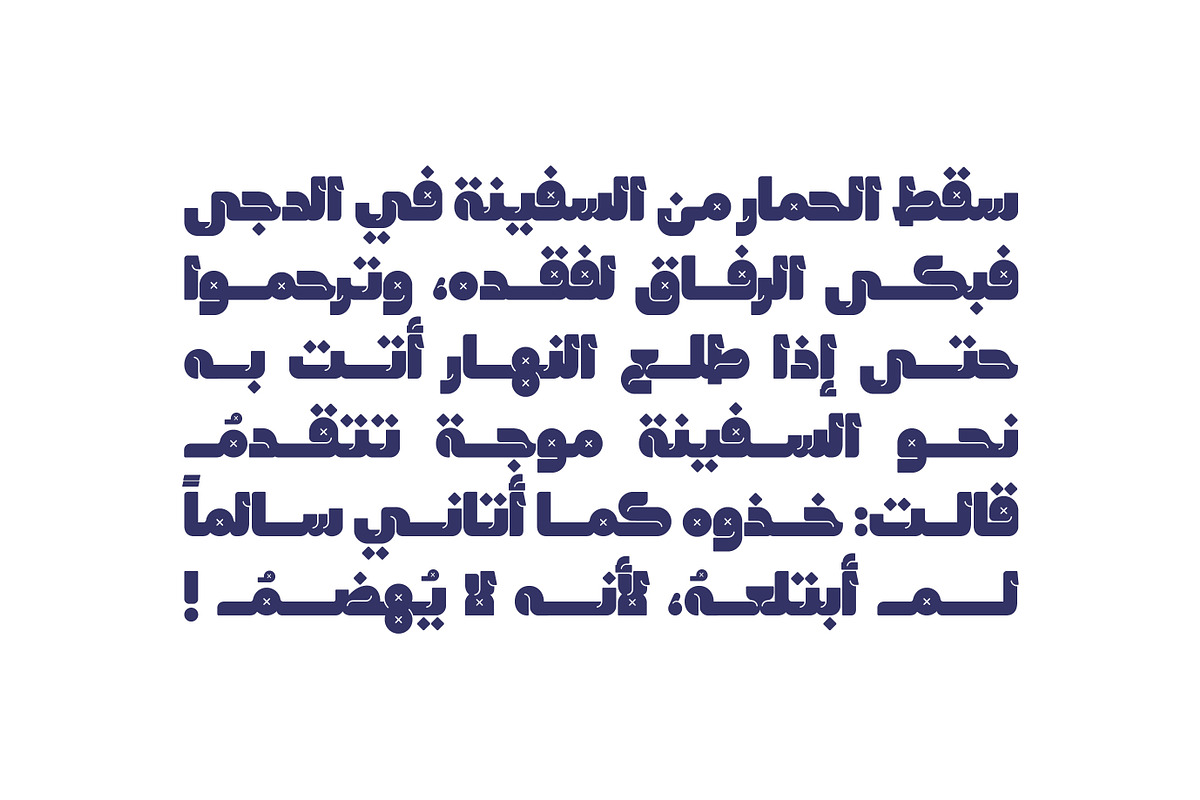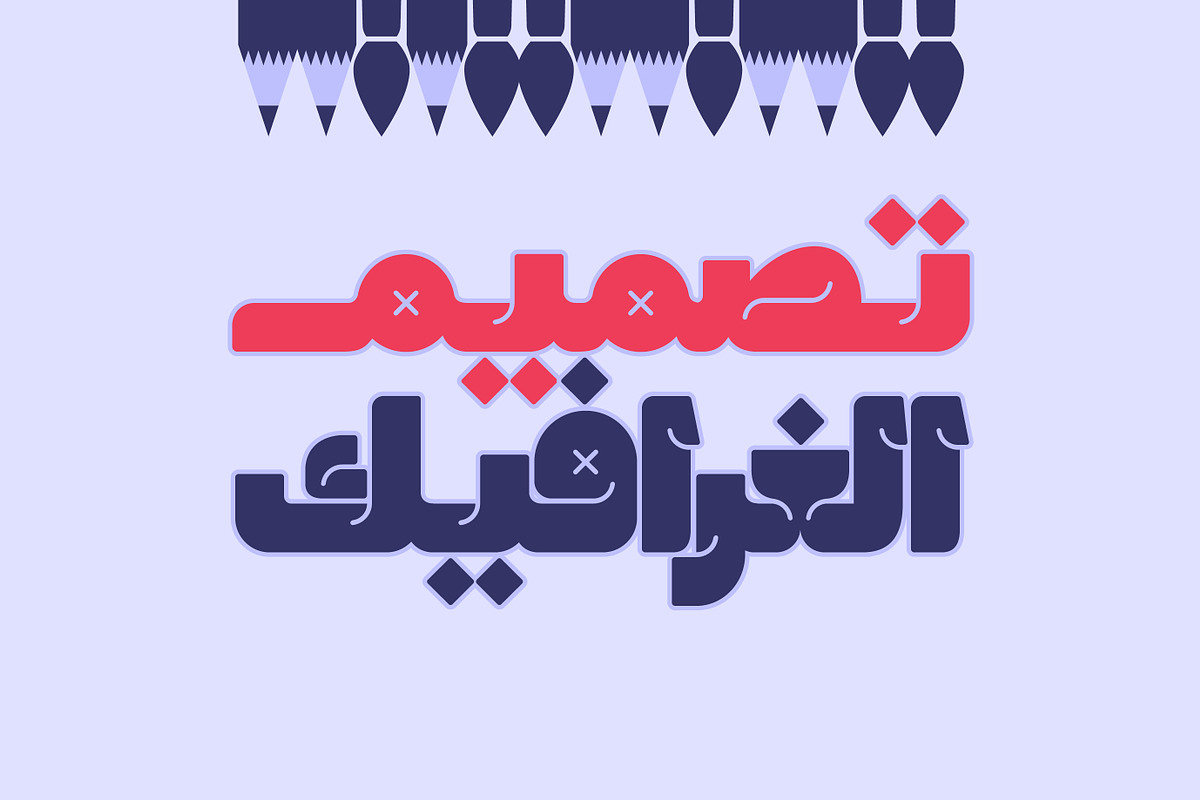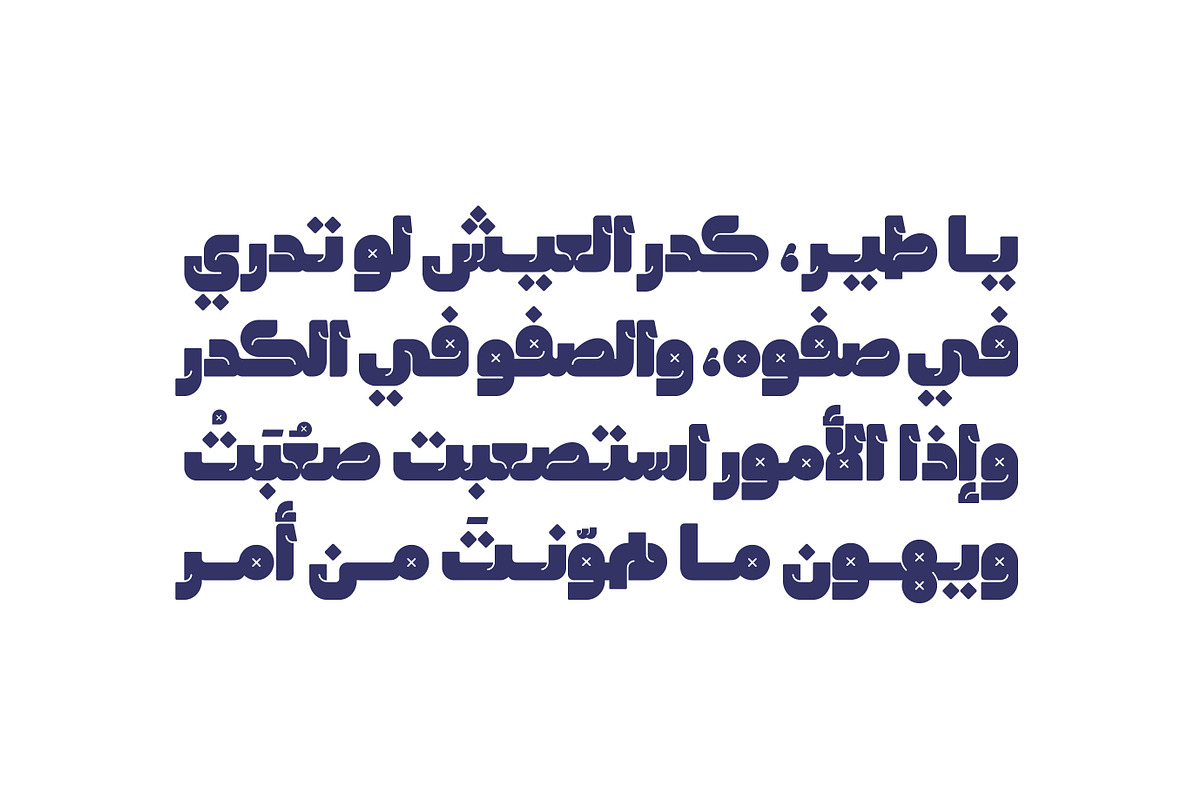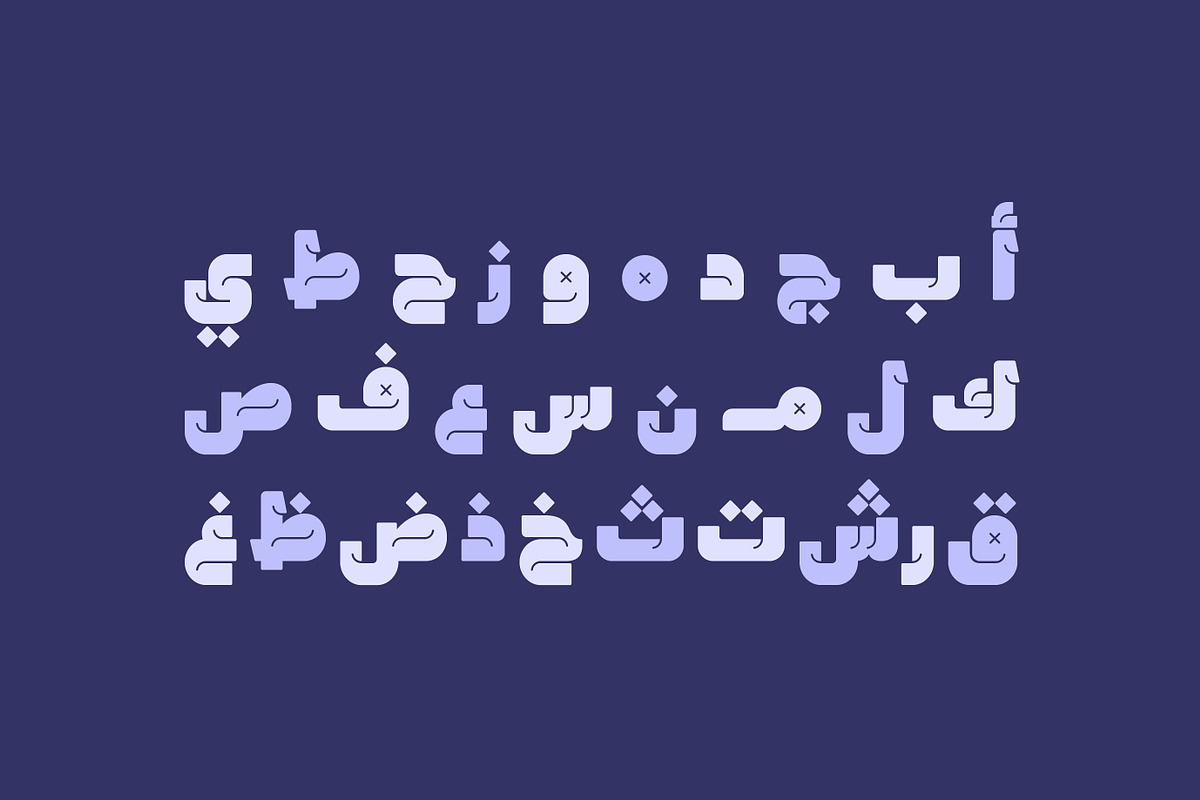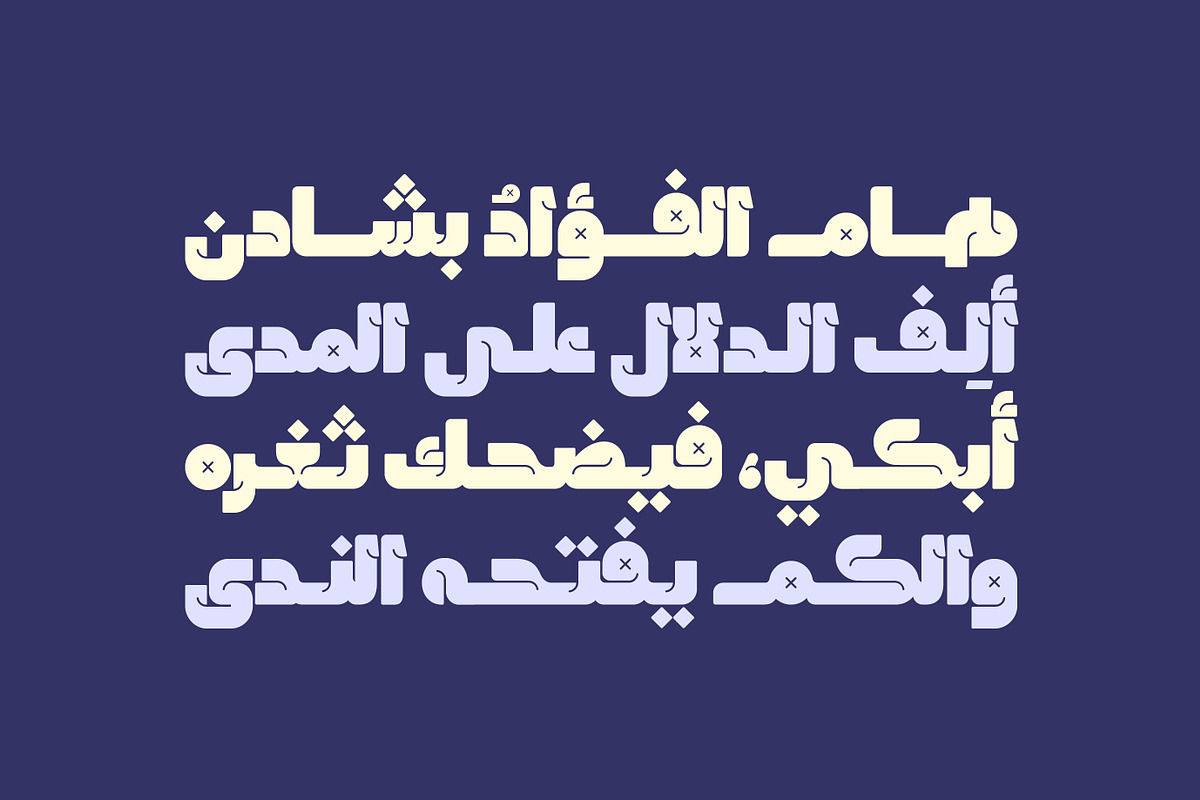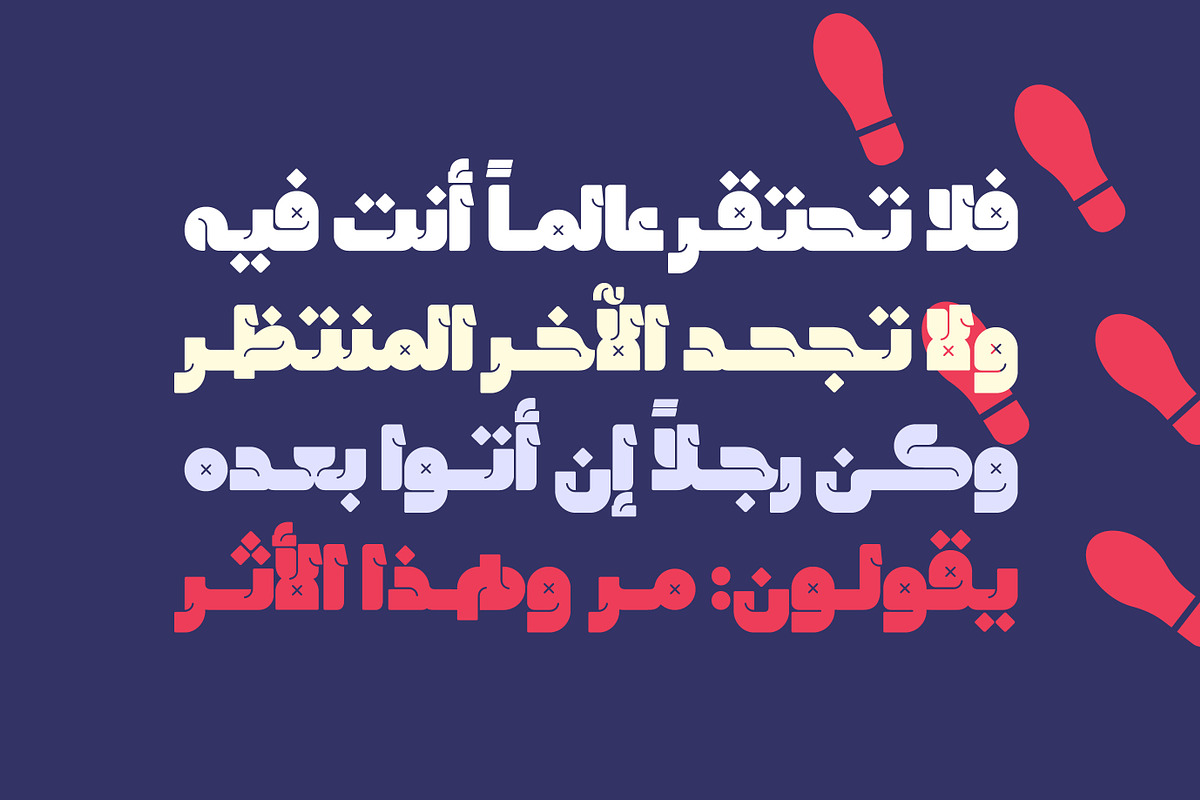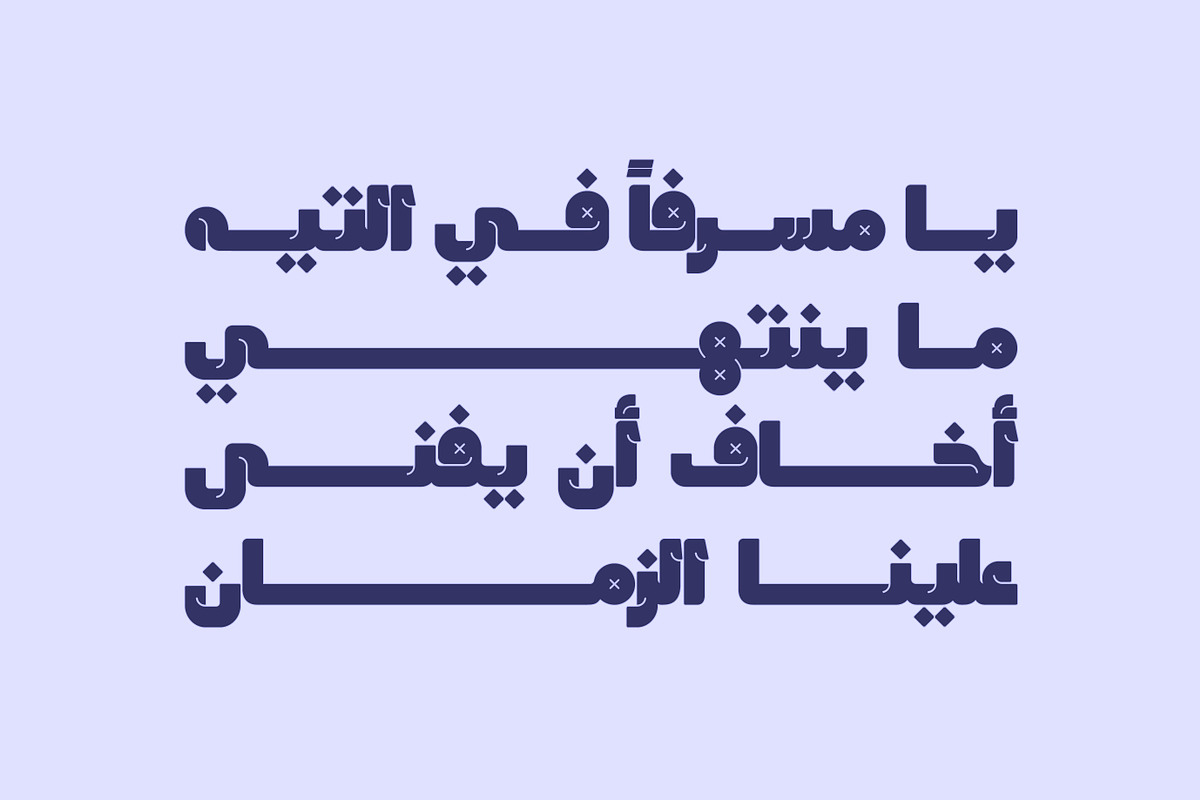
Lattouf - Arabic Font | خط لطوف
Lattouf is an Arabic display font that features a heavy structure with humorous style. The font is suitable for all modern projects including web, print and smart phone applications.
Lattouf - Arabic Font | خط لطوف by Mostafa El Abasiry fits naturally into Branding, posters, packaging, typography.